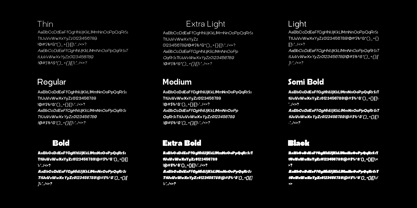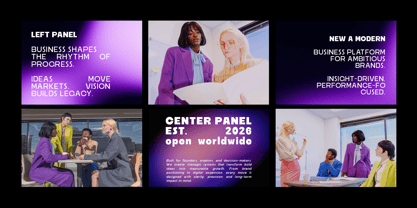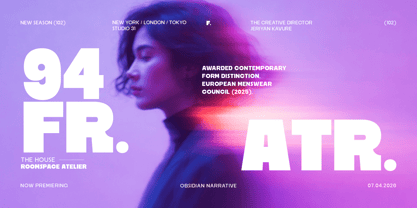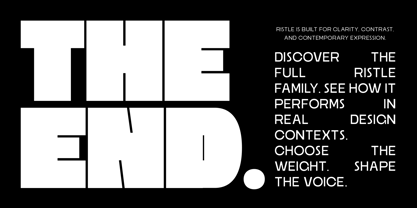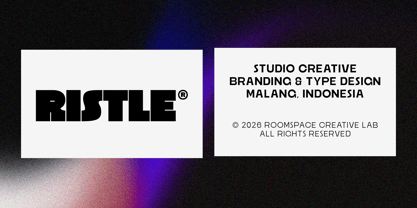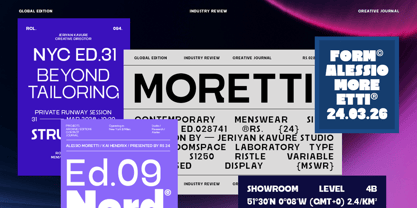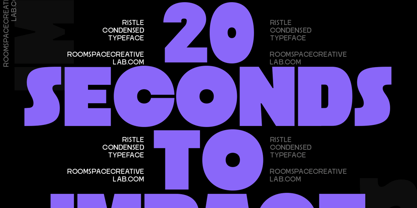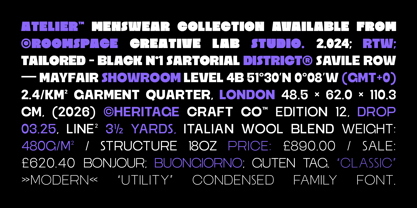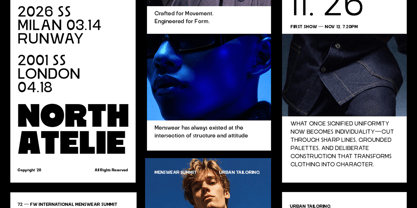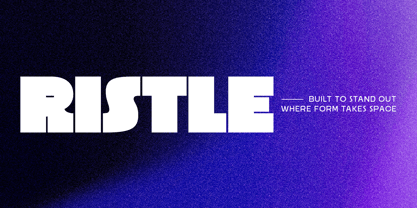
Ristle
by Jafar07
The Ristle Font Family was designed by Bakhrudin Ja'far and published by Jafar07. Ristle contains 9 styles and family package options. More about this family
Ristle is a bold display sans-serif font designed to bring confidence and modern strength into branding projects. With wide proportions, geometric balance, and clean structure, Ristle creates an unmistakable visual presence that stands out across both print and digital design. From tech branding and startup identities to posters, packaging, and editorial layouts, Ristle provides a contemporary voice built for brands that want to look strong, modern, and future-ready. Font Features Uppercase & lowercase Numbers & punctuation Multilingual support Bold geometric display style Perfect For : Brand identities, logo design, advertising, posters, packaging, social media graphics, and modern editorial layouts.
Designers: Bakhrudin Ja'far
Foundry: Jafar07